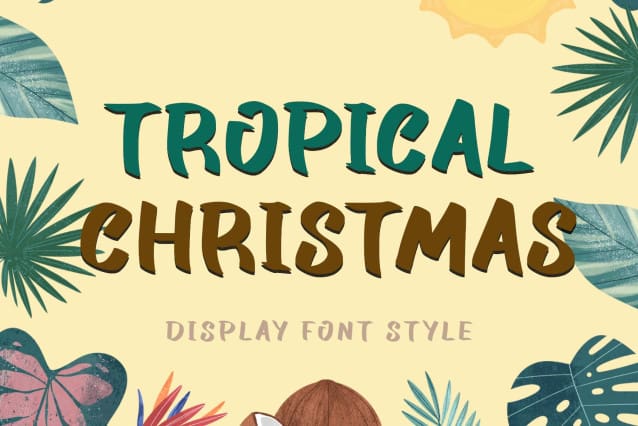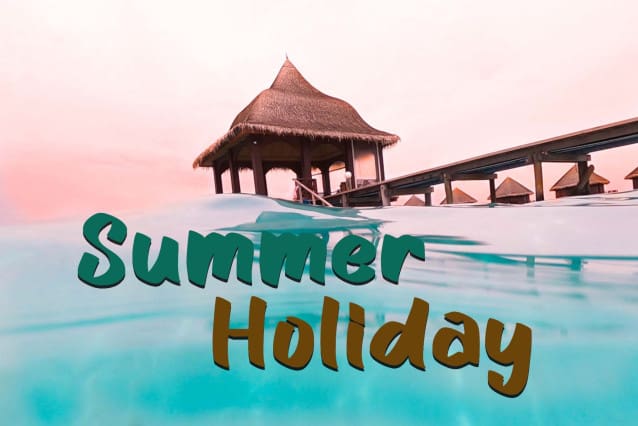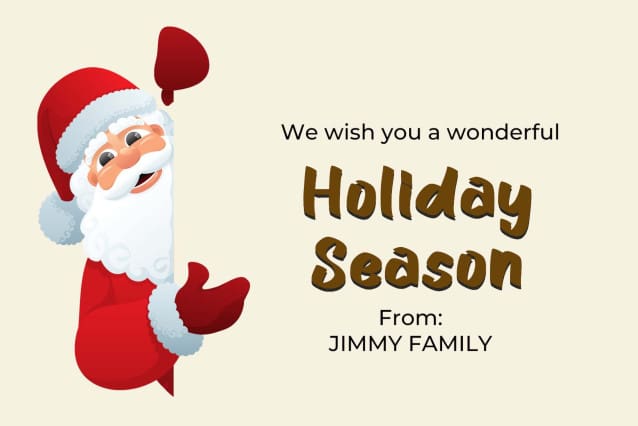
Tropical Christmas Font
Tropical Christmas Font is an elegant display font. This font is equipped with uppercase, lowercase, numerals, punctuations and multilingual support. Very suitable for holiday, summer, Christmas, back to school, 4th of July, branding, banners, posters, prints, logos, stickers, mugs, tumblers, t-shirts and others.